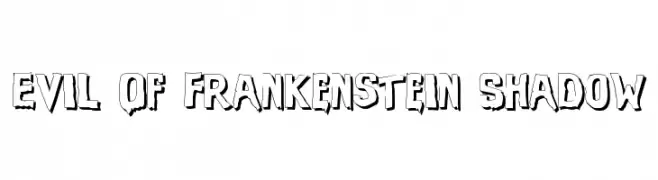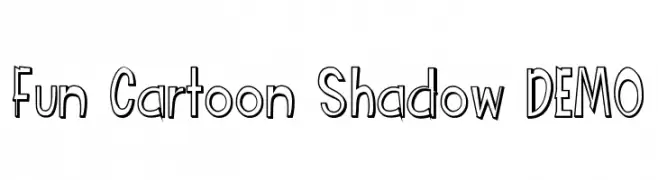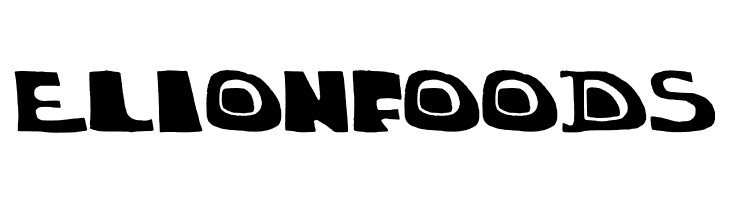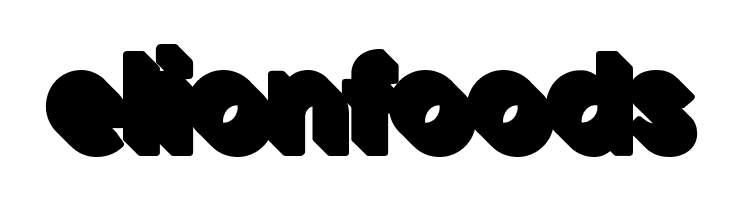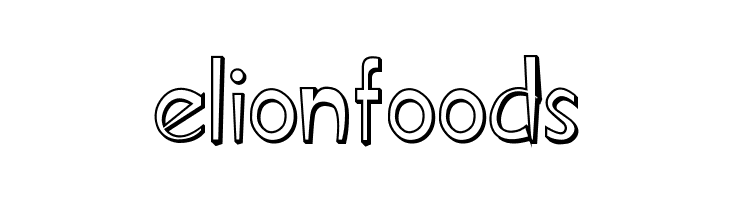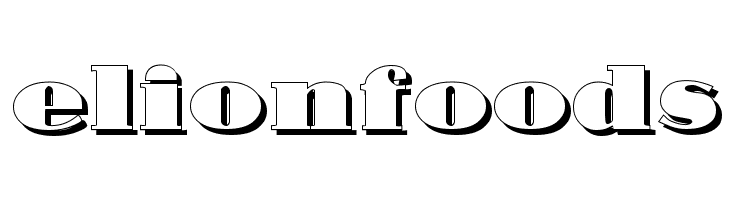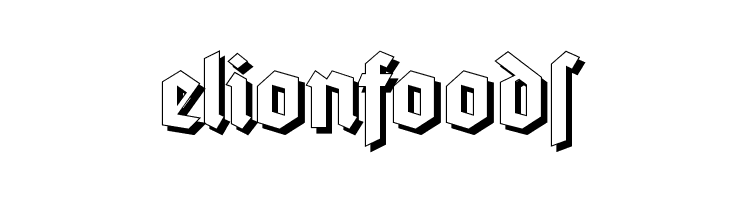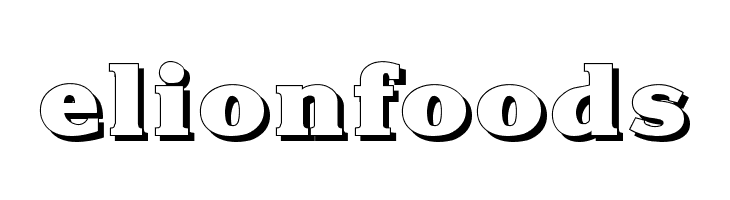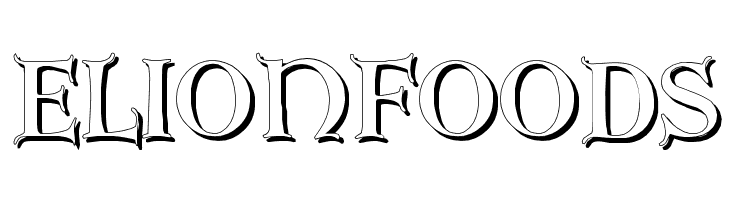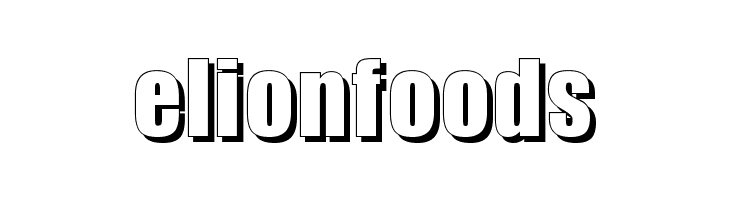
A bold, playful font with a shadow effect, ideal for dynamic and fun designs.
A bold, blocky font with a shadow effect for a modern, impactful look.
A playful, cartoon-style font with a shadow effect for added depth.
A bold, shadowed font with a three-dimensional effect, perfect for standout designs.
A bold, shadowed font with a modern and decorative style.
A bold, shadowed font with a Gothic-inspired, angular design.
A bold, shadowed font with a three-dimensional effect, perfect for impactful designs.
A bold, decorative font with a shadow effect, ideal for dramatic displays.
A bold, shadowed font with a jagged, horror-inspired style.
A bold, shadowed font ideal for impactful headlines and signage.